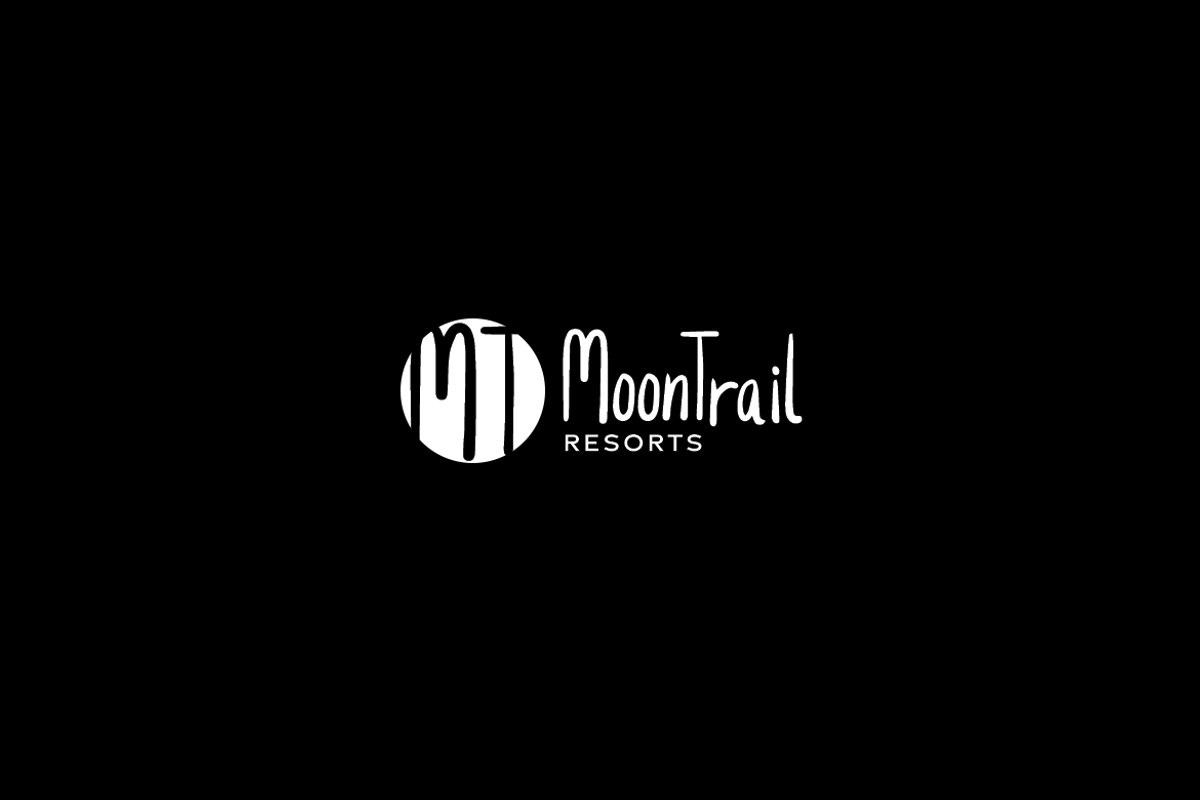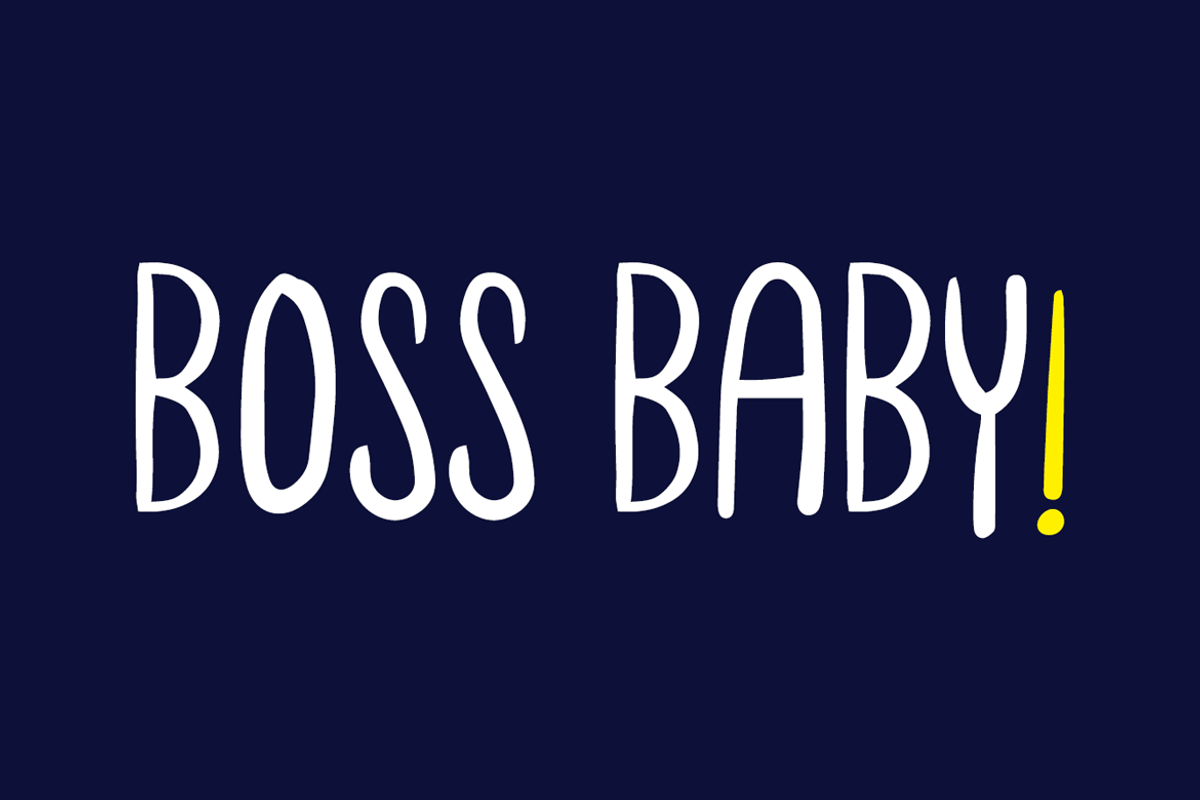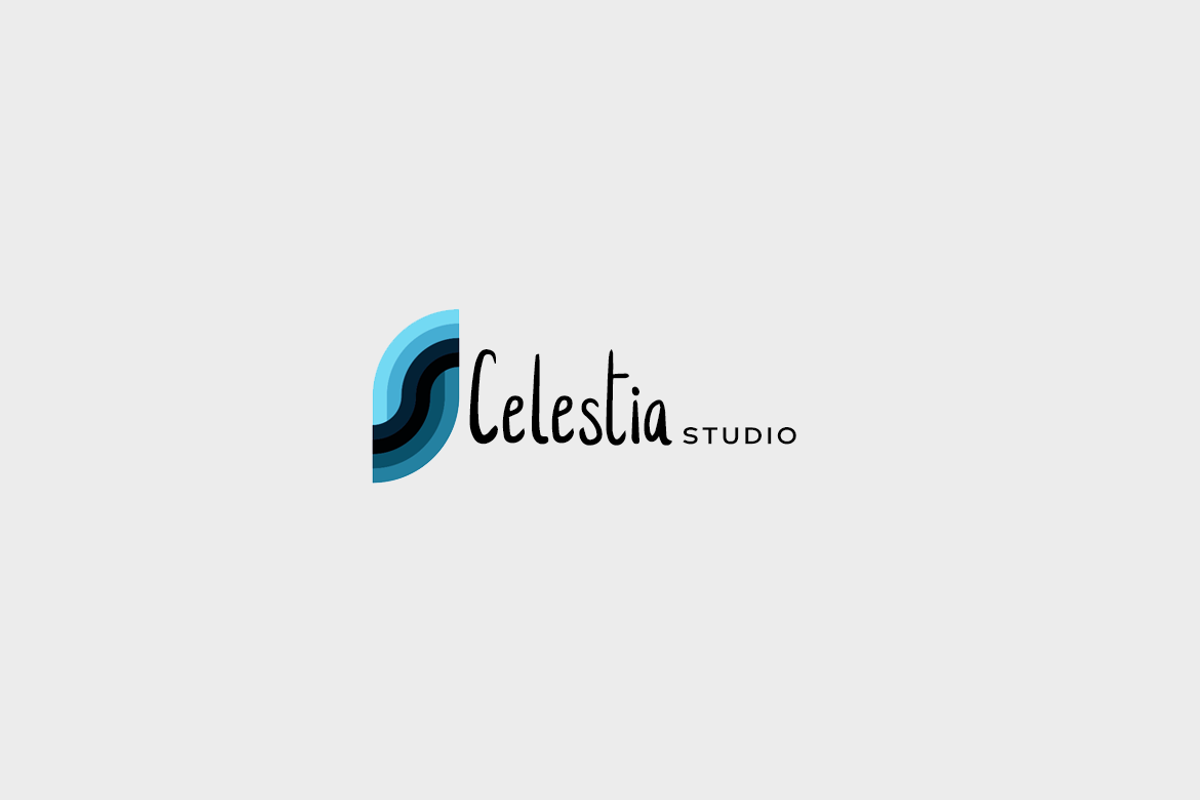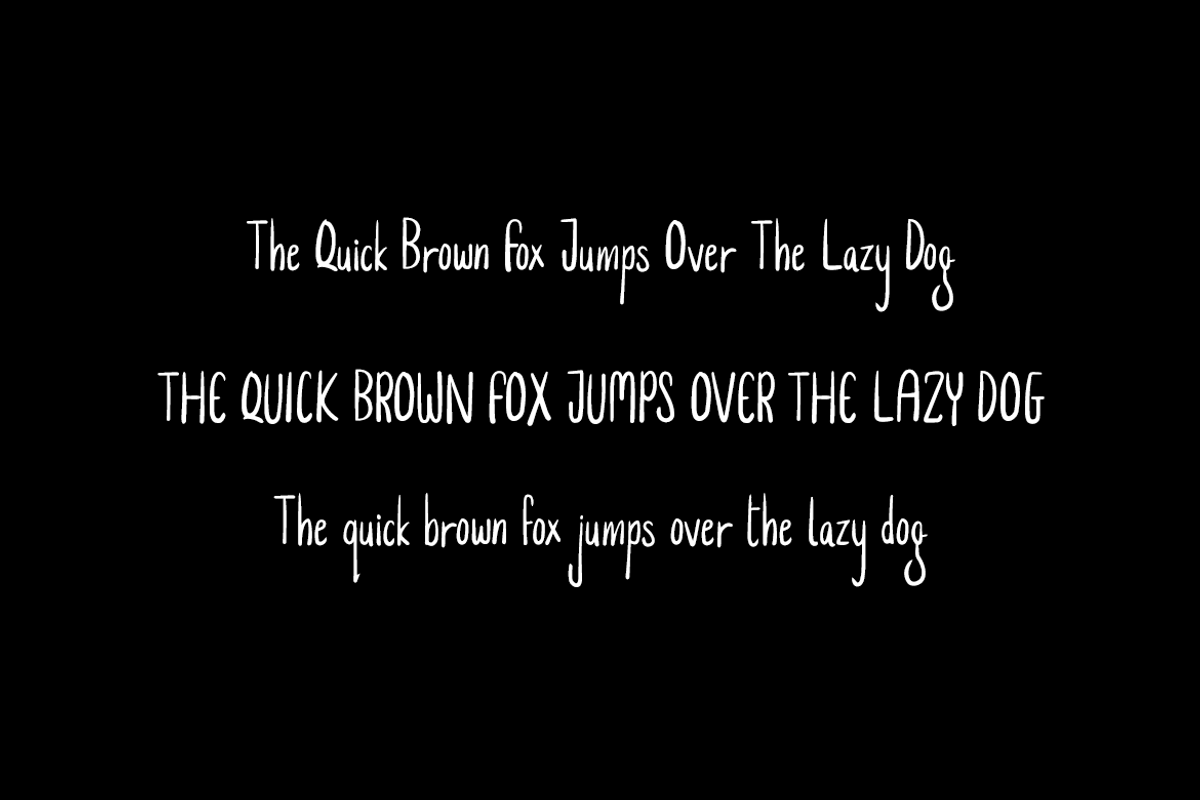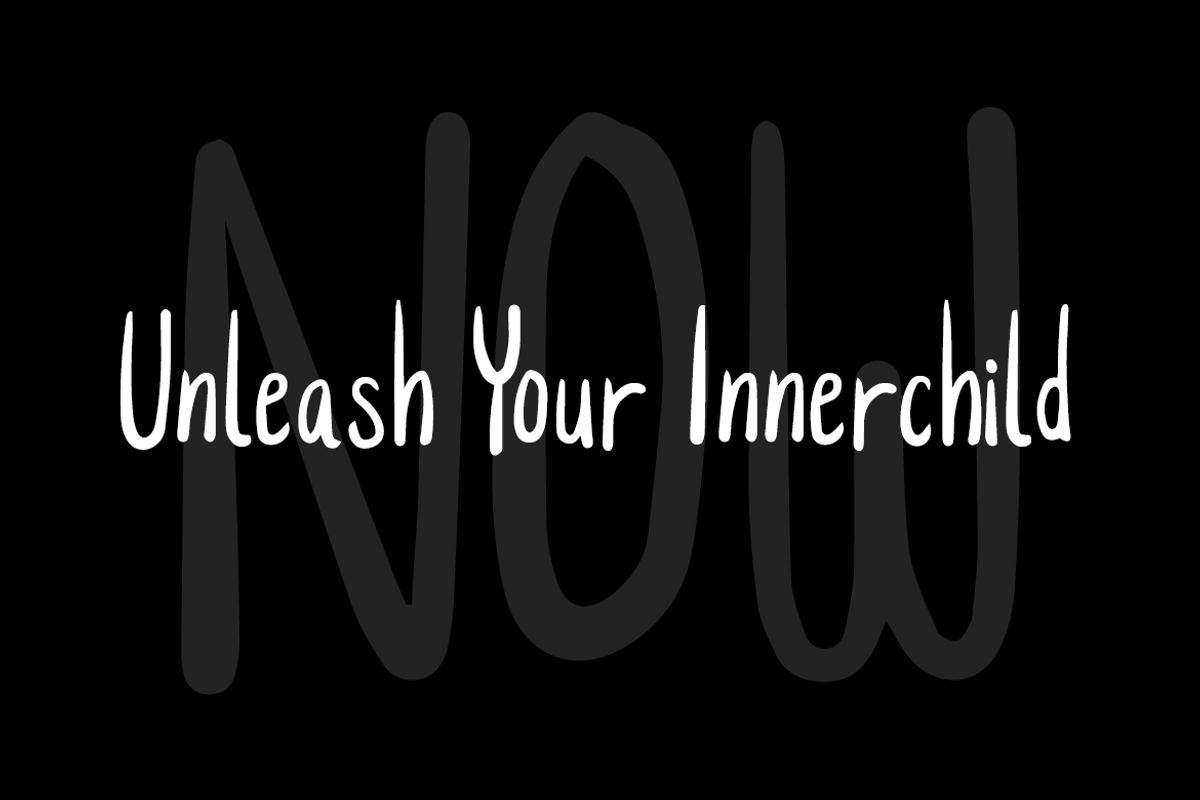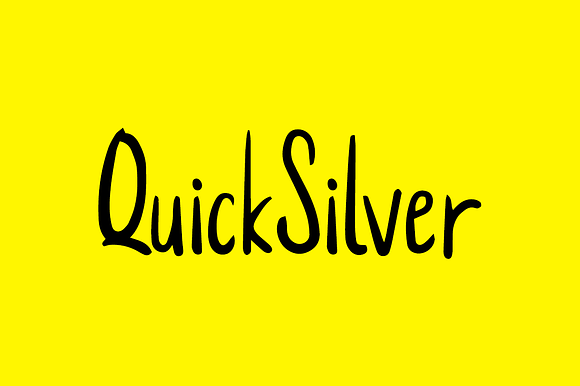
QuickSilver - Cute Handmade Font
QuickSilver is unique, fresh and cute handwritten font for branding / logo design / logotypes / greeting cards / promotional graphics and anything in between. QuickSilver is inspired from modern era cartoon titles and completely handmade with passion and perfection.
Extended Character Sets
Along with the basic Latin character set, we have added Western European, Central European, South Eastern European character sets for your convenience.
We have performed advanced, in-depth kerning for all possible letter combinations.